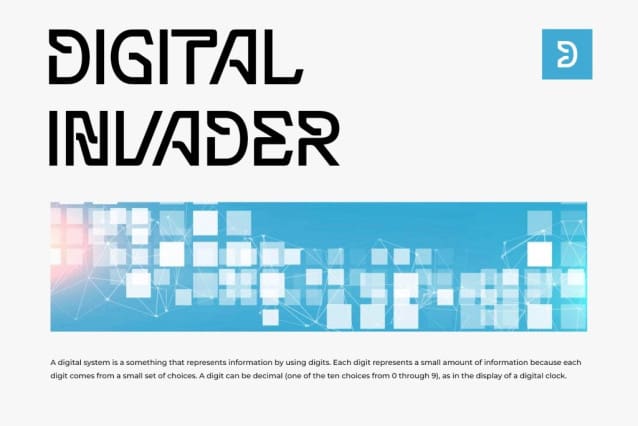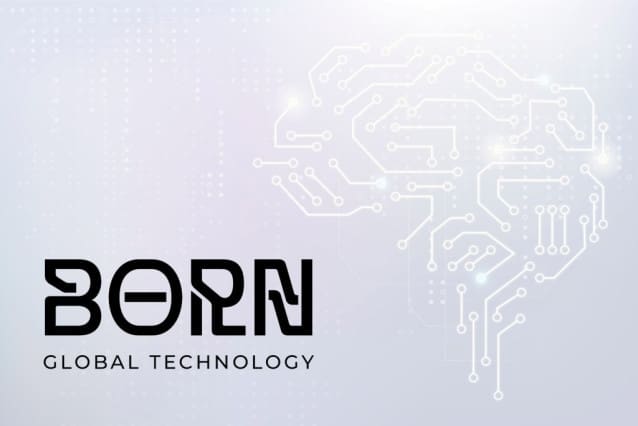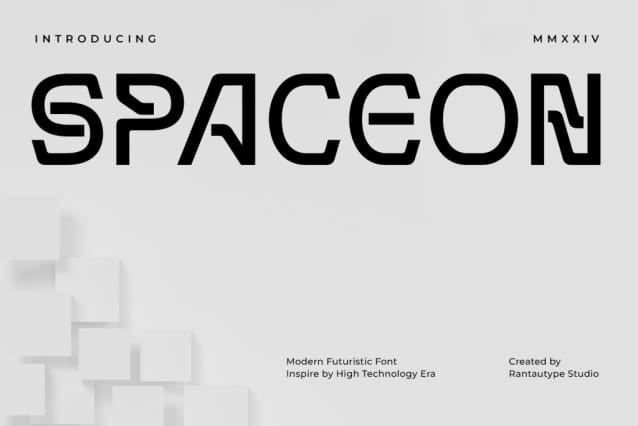
Spaceon Font
Spaceon Font is modern futuristic font with unique strong character. Spaceon can bring you to the ultimate of future technology with moden and minimalist form.
Spaceon Font is perfectly for a logo but multipurpose can be use like advertisements, stationery, branding project, display and magazine, headline, corporate brand, product design, label, business project and many other project with old futuristic touch.